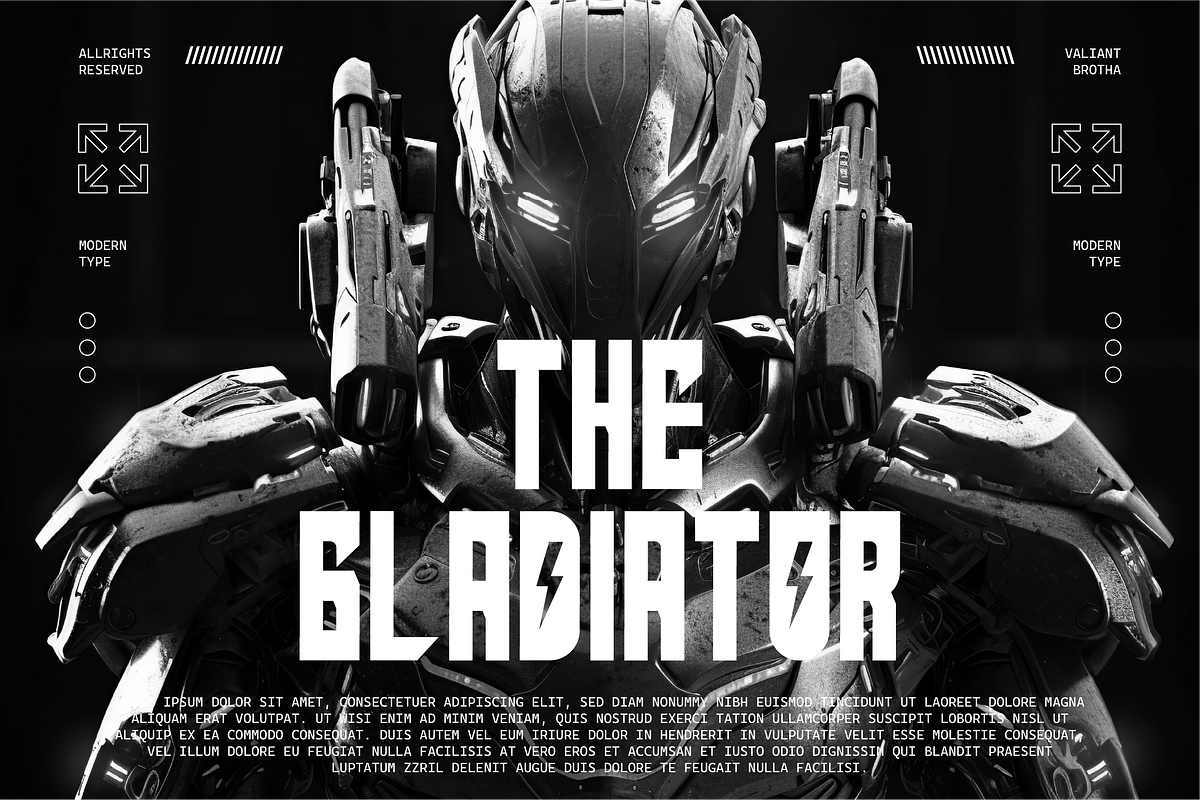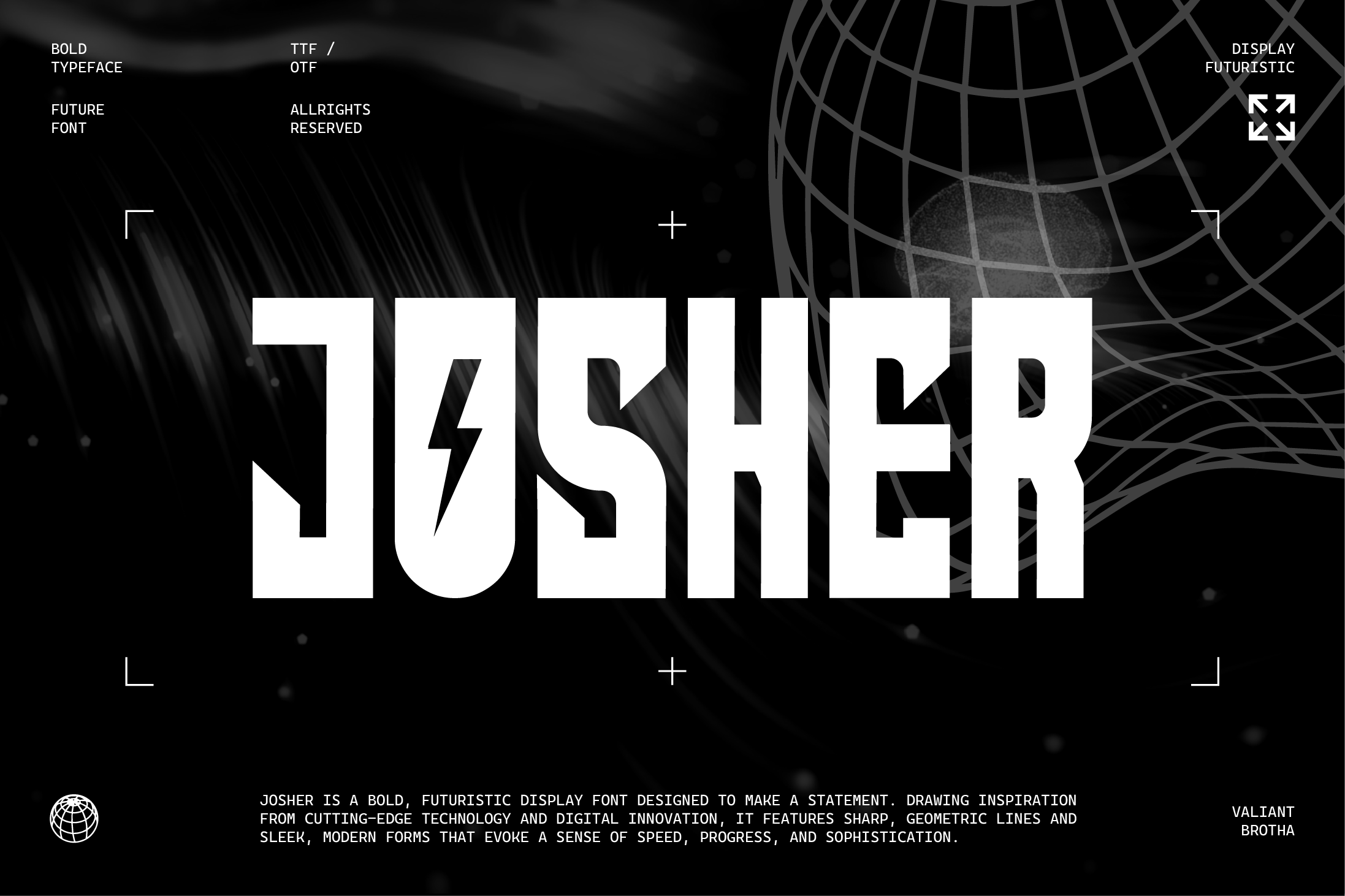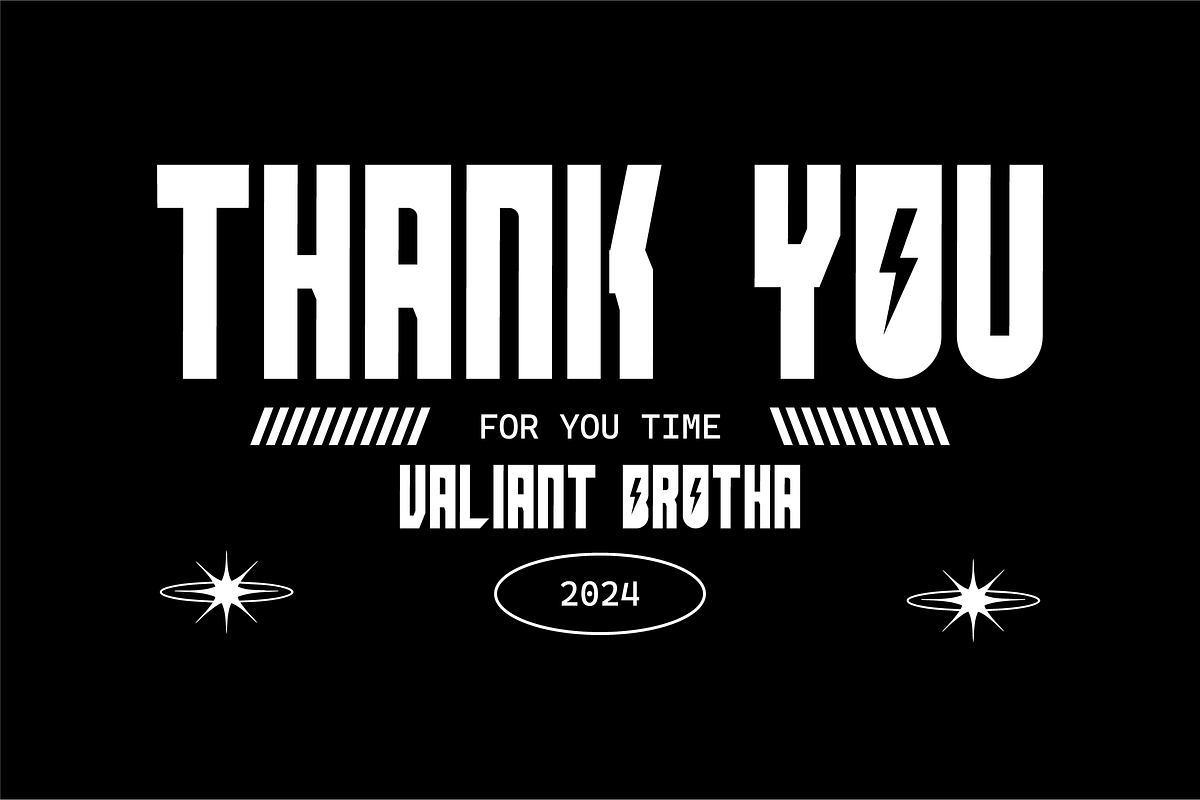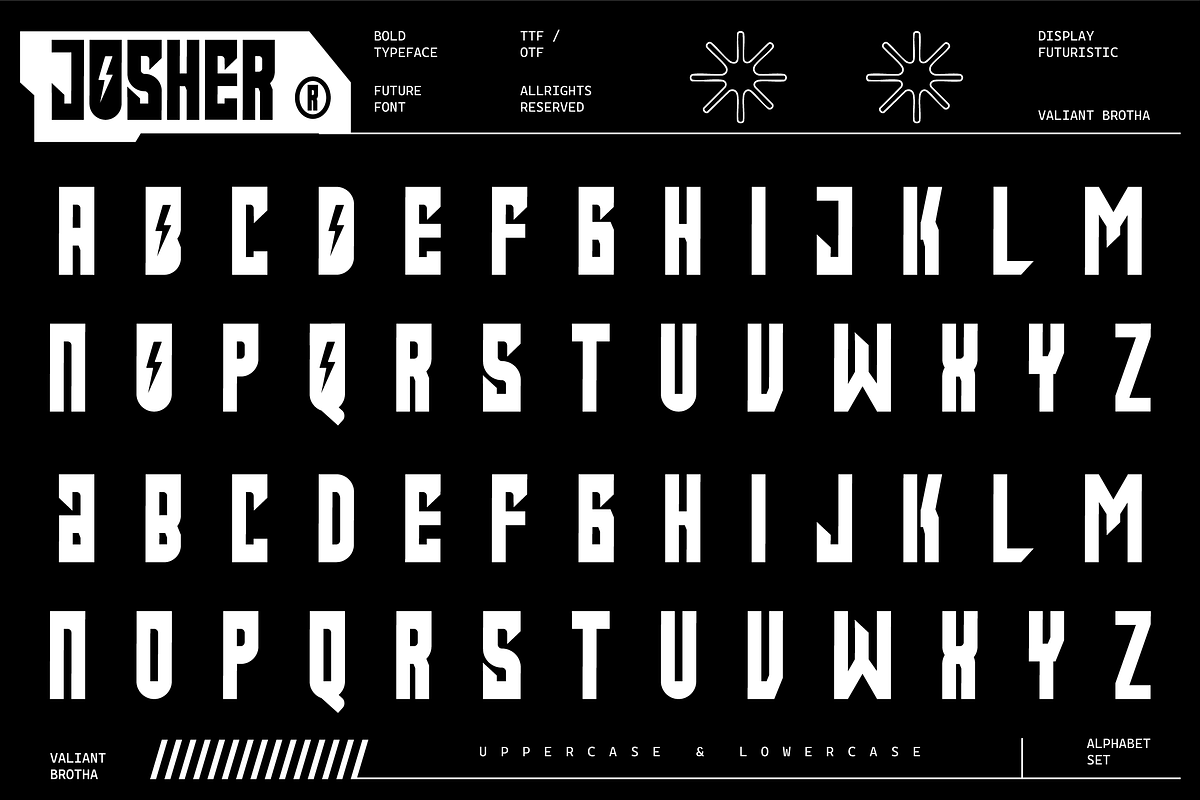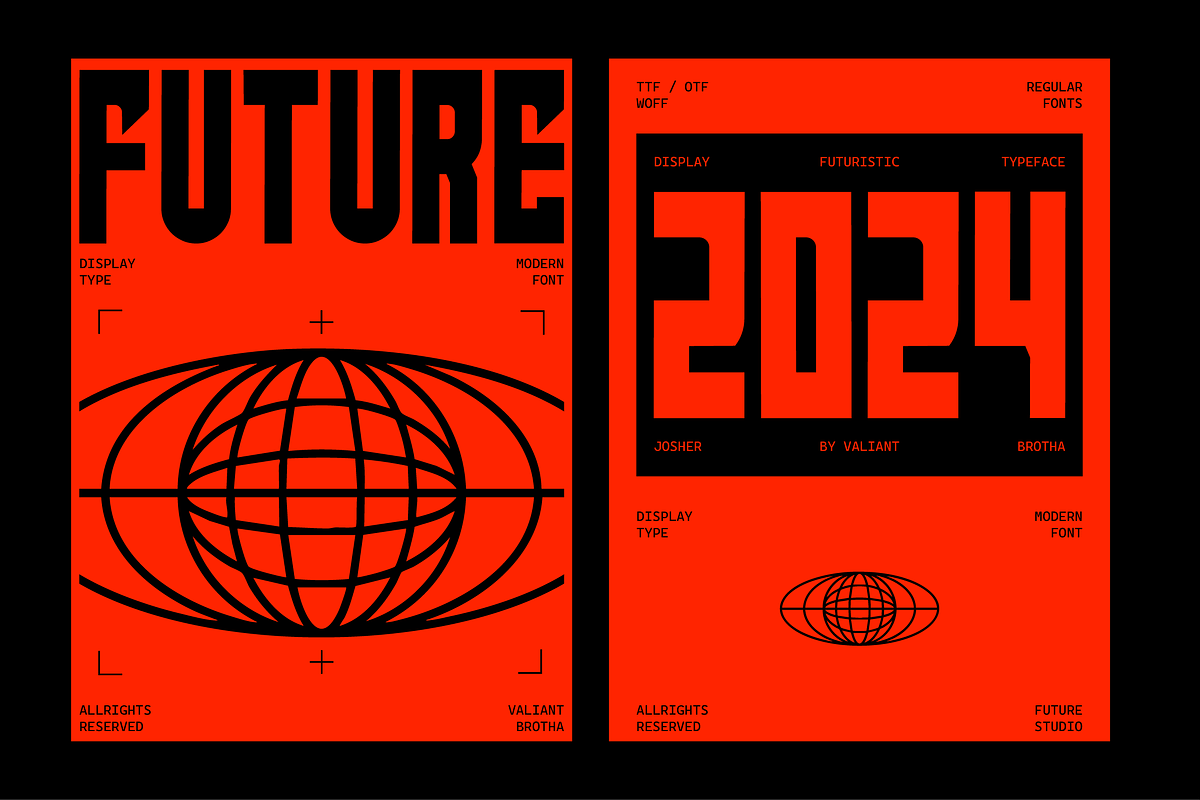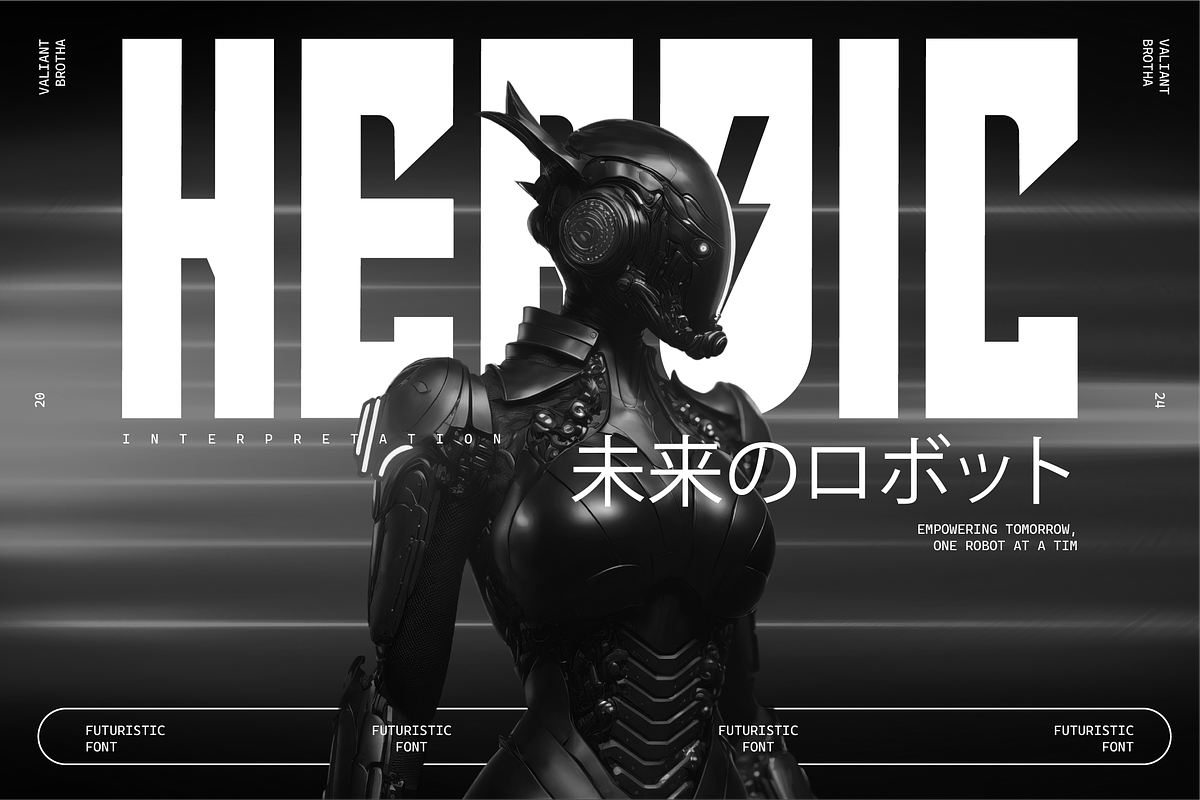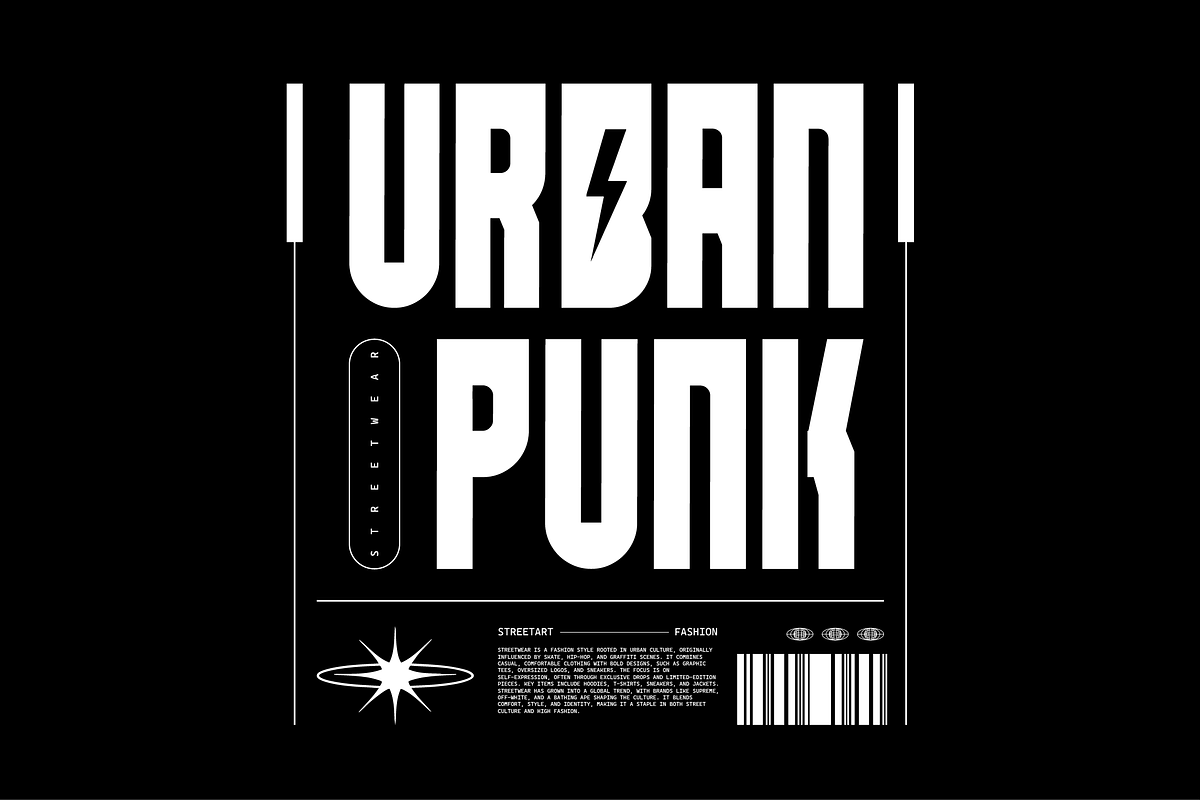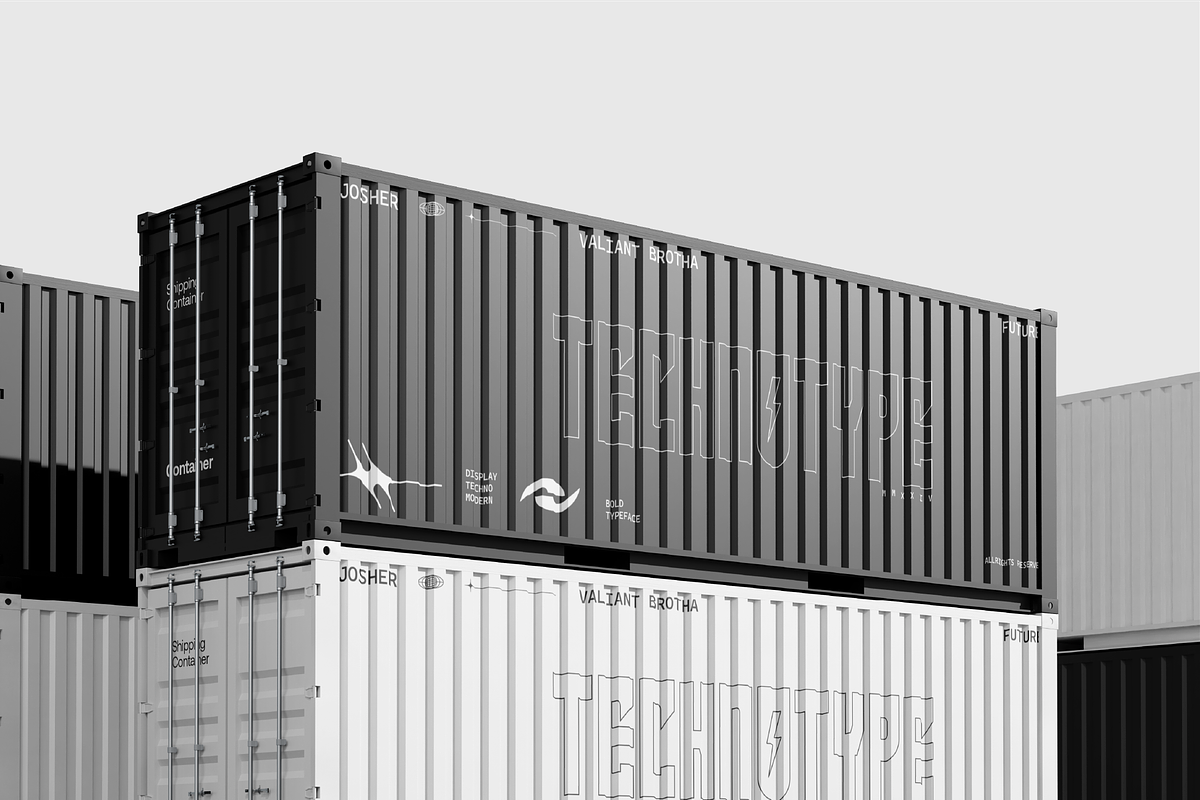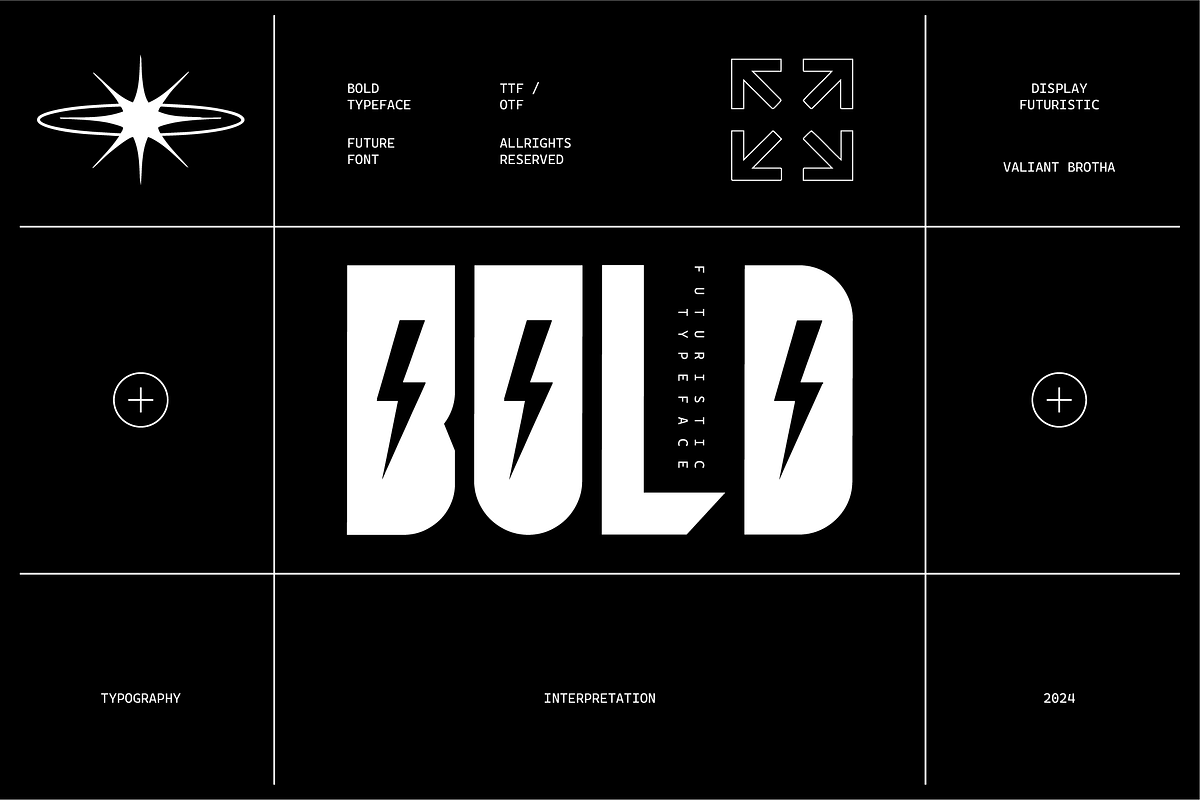
VB Josher - Futuristic Font
Josher is a bold, futuristic display font designed to make a statement. Drawing inspiration from cutting-edge technology and digital innovation, it features sharp, geometric lines and sleek, modern forms that evoke a sense of speed, progress, and sophistication.